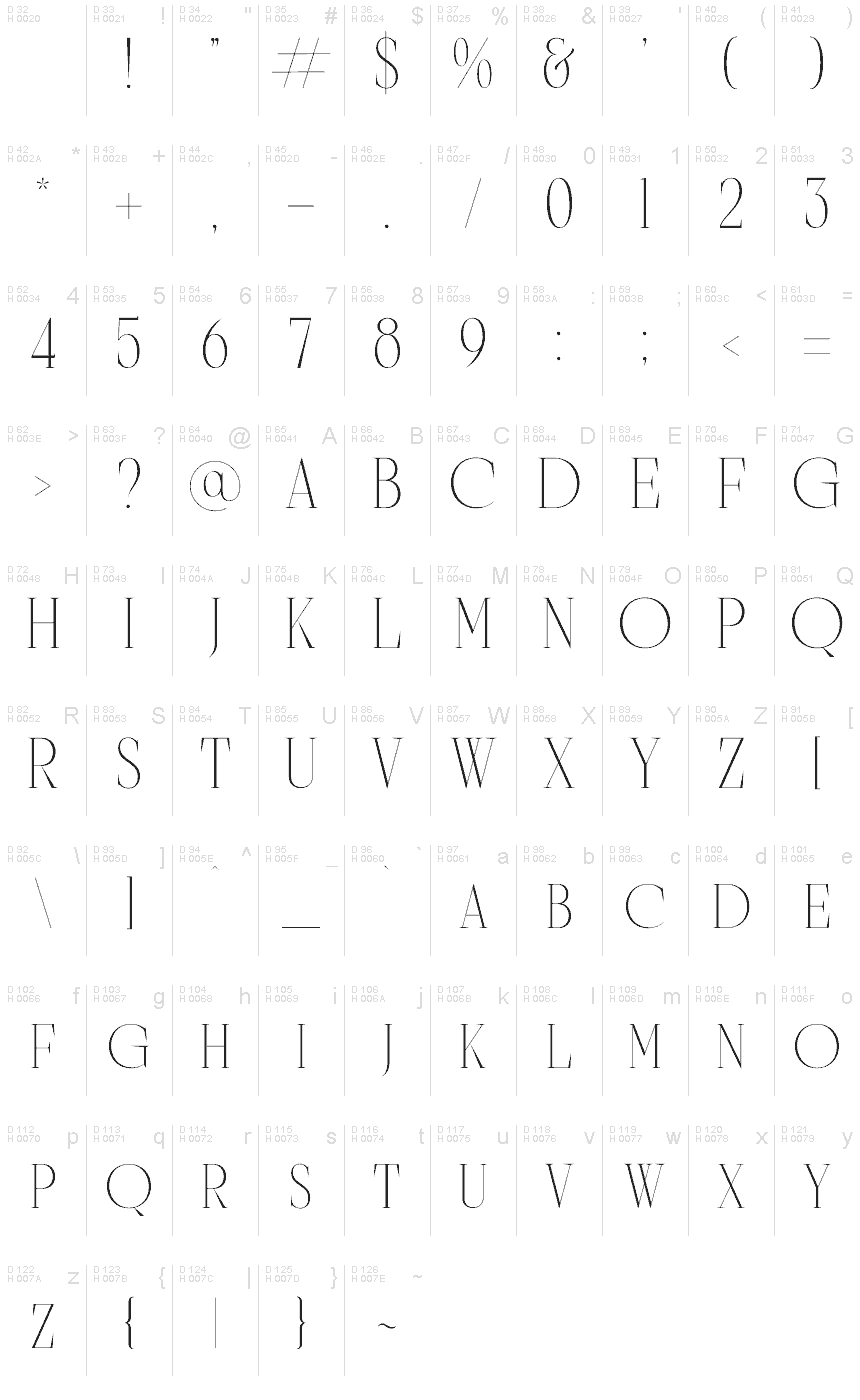
Peany Timer
The latest font creation from Storytype Studio will not only complement your UX projects, but it will also spice up your blogs and make your personal branding shine.
Peany Timer is a minimalist serif font that is available to you in light weight format. It has a professional look and its condensed structure makes it highly flexible.
Peany Timer provides an excellent experience for both text and display presentations. It can be used for presentations, UX designs, personal branding, headlines, quotes, etc. And to sweeten the deal, it can be used for personal and commercial projects.